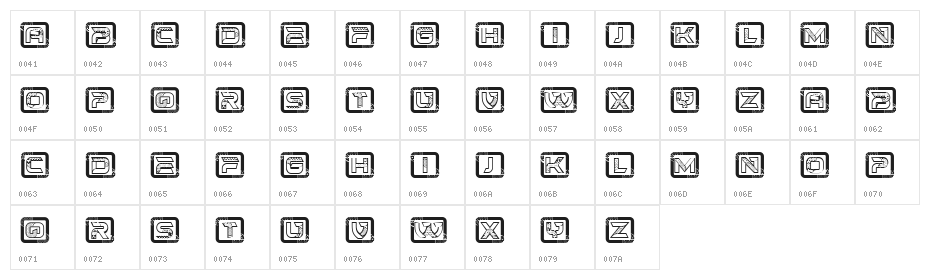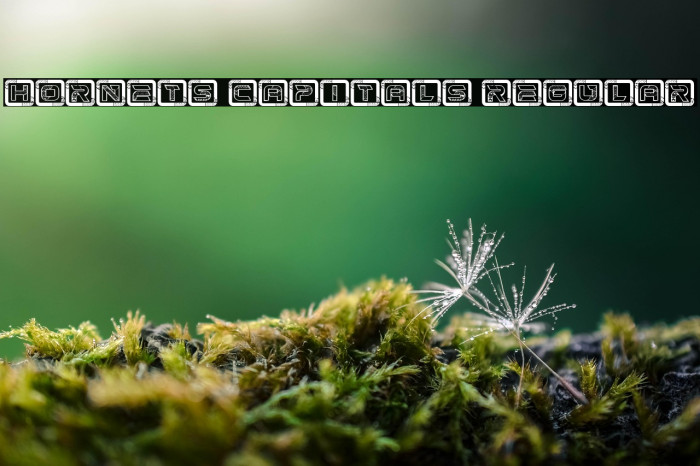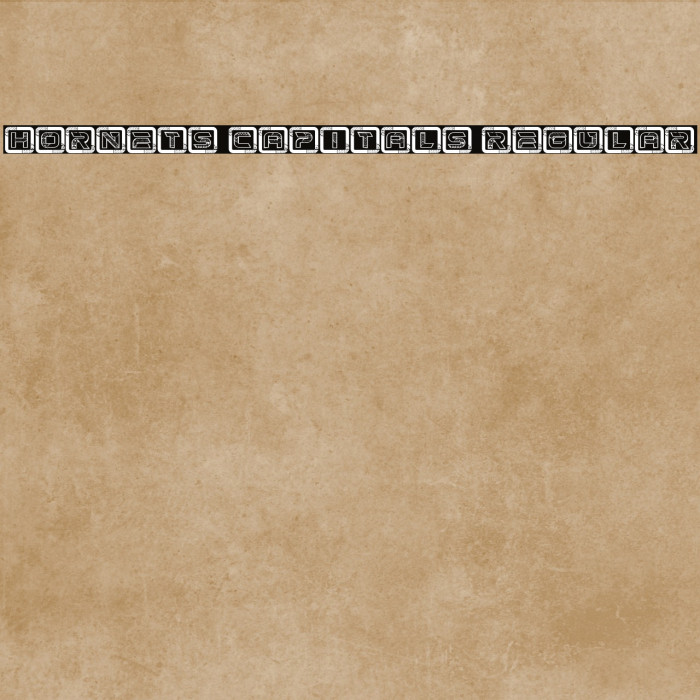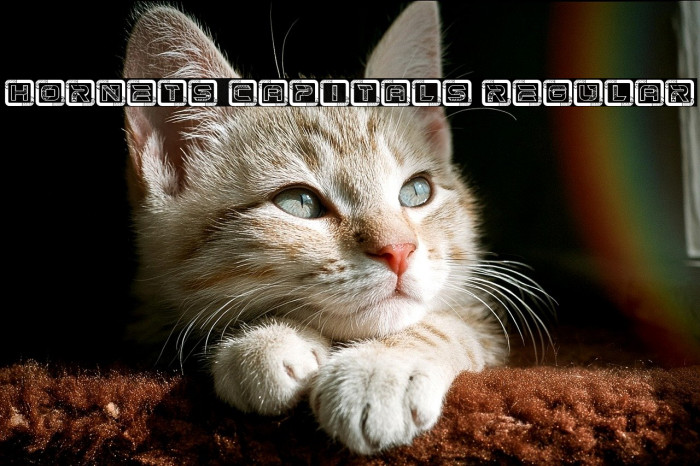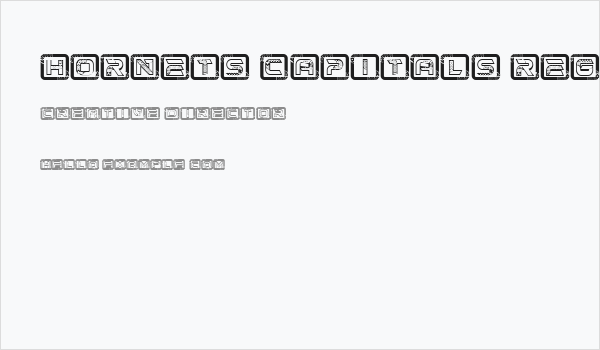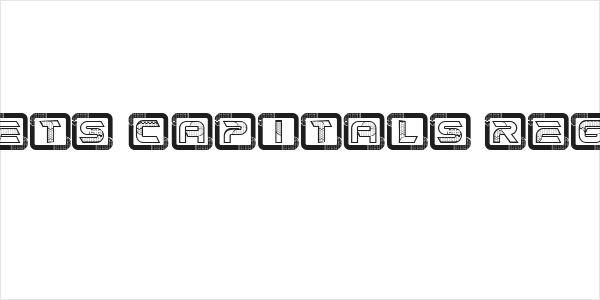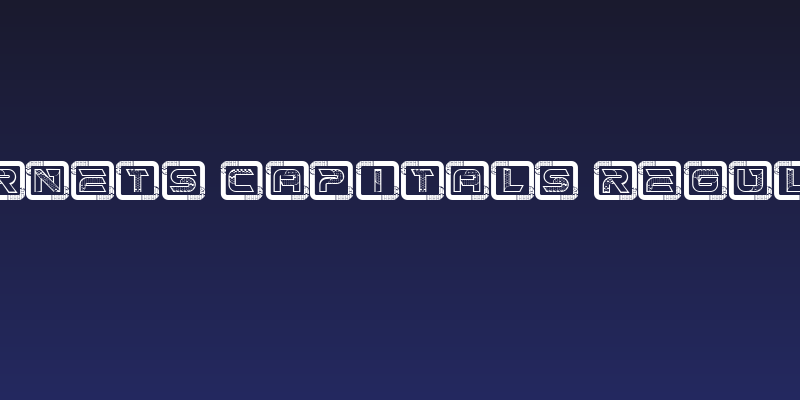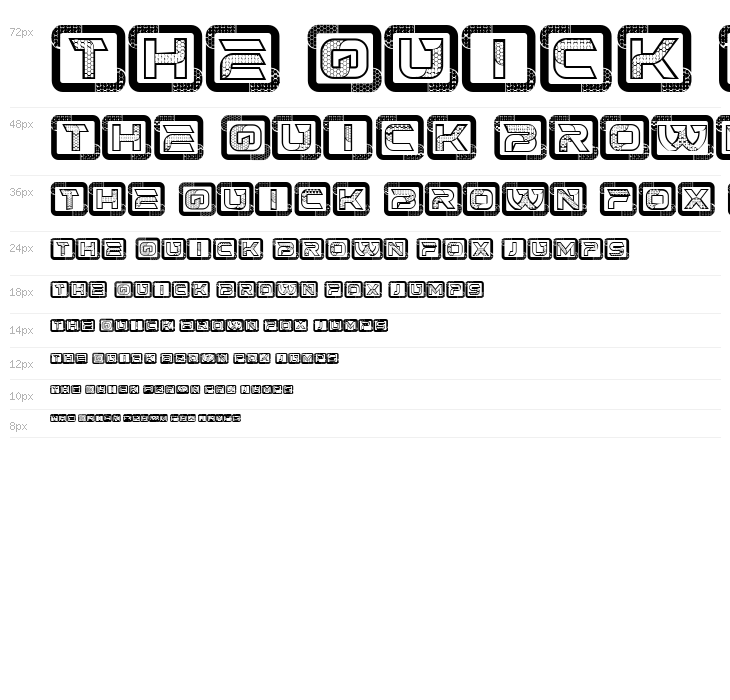
Hornets Capitals Regular Font
Hornets Capitals Regular Description
This font features a bold, geometric design with each character enclosed in a square outline. The letters are constructed with thick, uniform strokes, giving them a strong and impactful appearance. The style is reminiscent of digital or technological themes, with a modern and futuristic vibe. The enclosed design adds a unique touch, making it stand out for creative and bold applications. The font is consistent across uppercase and lowercase letters, as well as numbers and special characters, maintaining a cohesive look throughout.
| Proposed Projects | Ideal for technology branding, video game titles, futuristic posters, and digital media projects. |